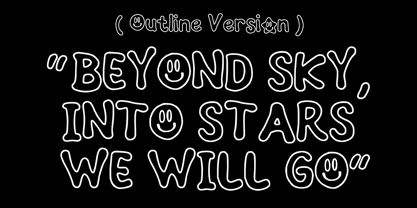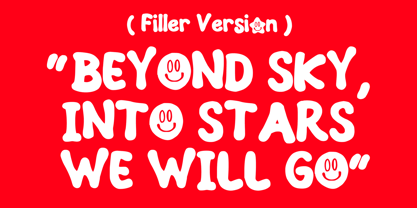
Retro Smile
by Mvmet
The Retro Smile Font Family was designed by Gabriel Valentinus and published by Mvmet. Retro Smile contains 2 styles and family package options. More about this family
Retro Smile is a cool font for your fun displays. It comes with 2 versions (filler and outline). The fun and happy vibe will be there when you use it. You can use it for anything ranging from t-shirts, other merchandise, kids’ book designs, and greeting cards to stickers and posters, or anything that needs a casual touch. Fall in love with its incredibly versatile style, and use it to create lovely designs!
Designers: Gabriel Valentinus
Foundry: Mvmet